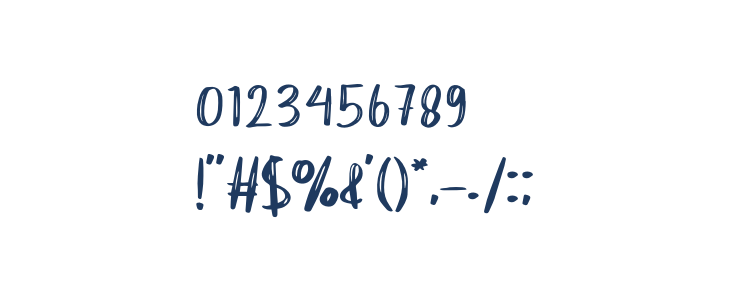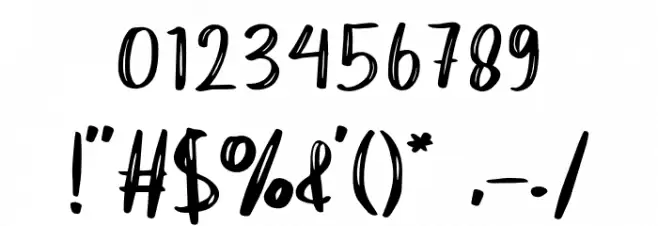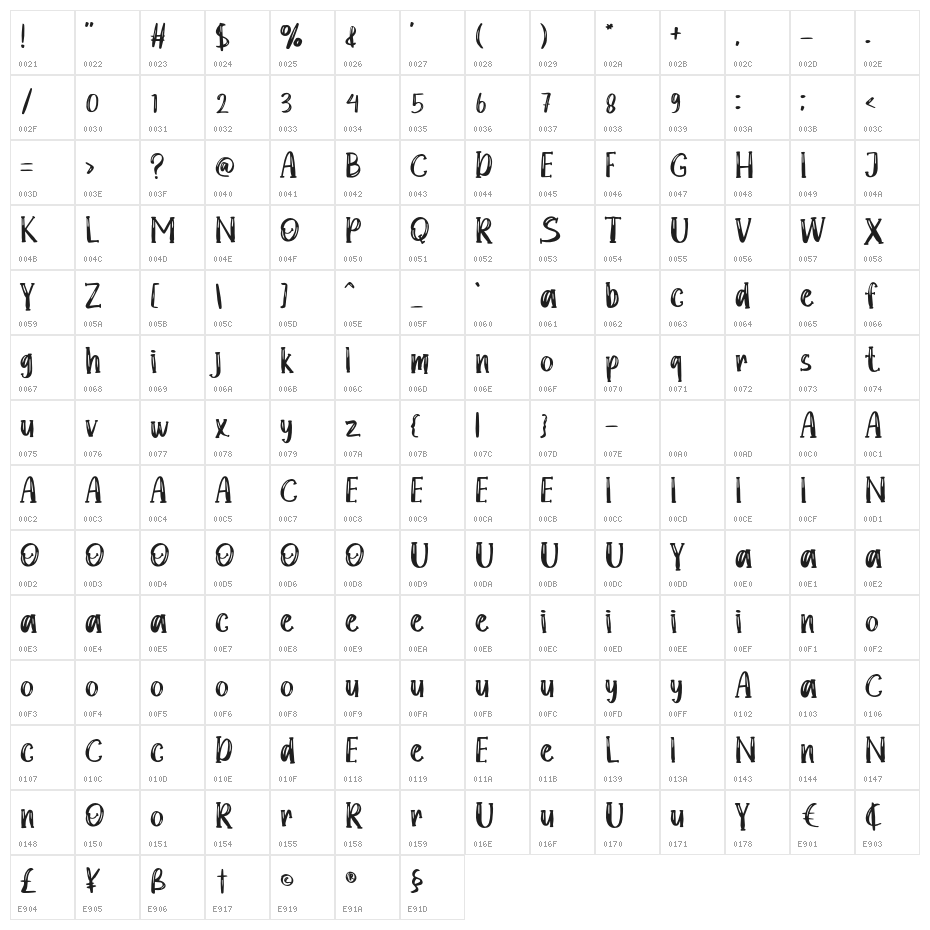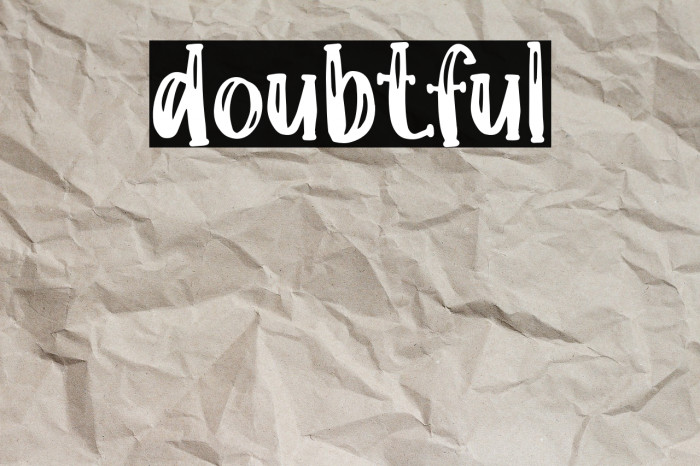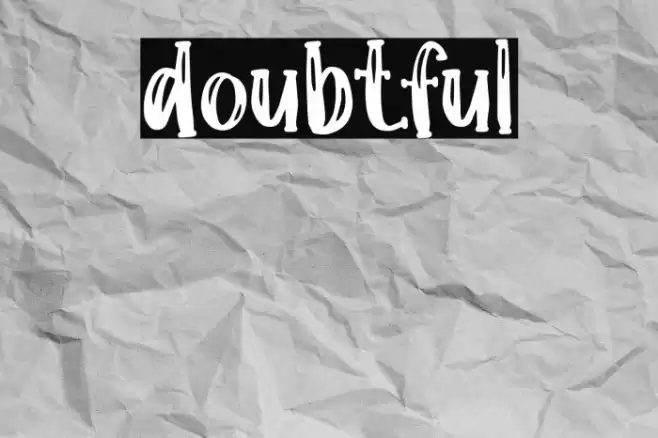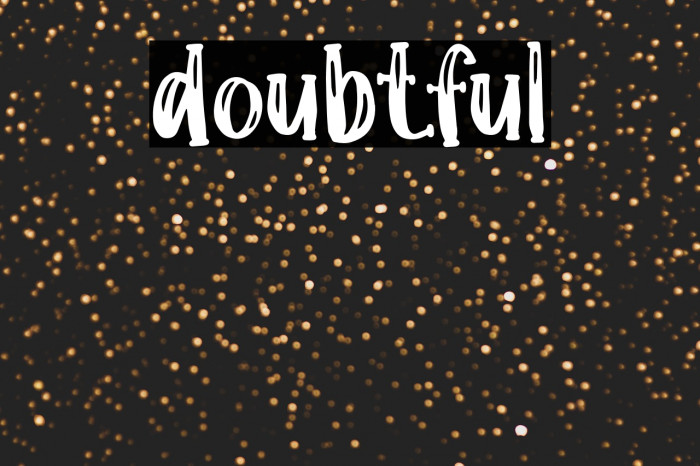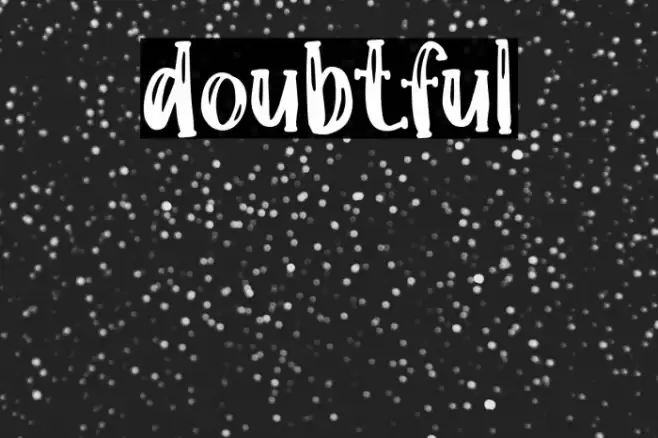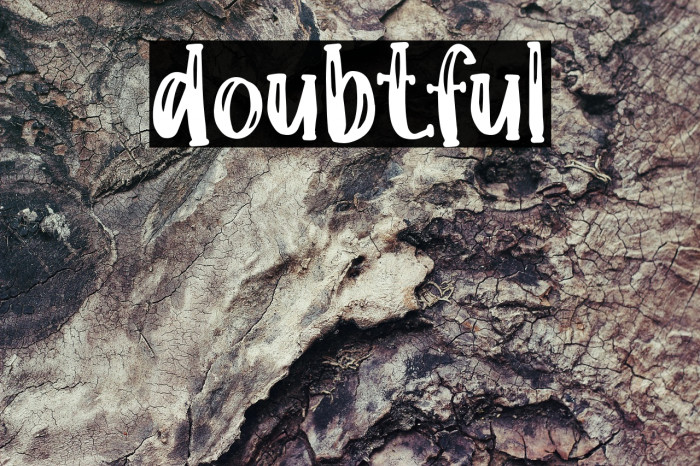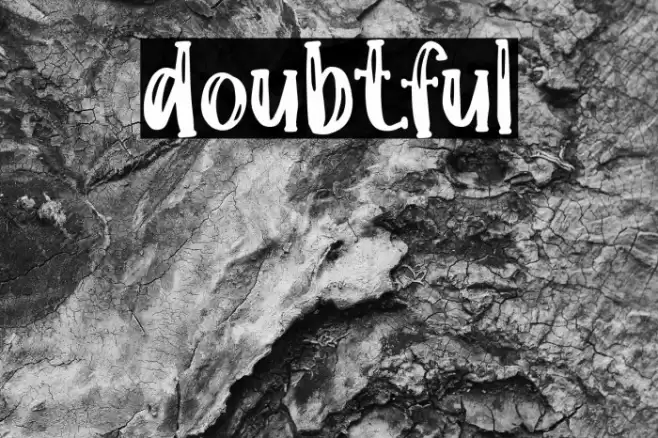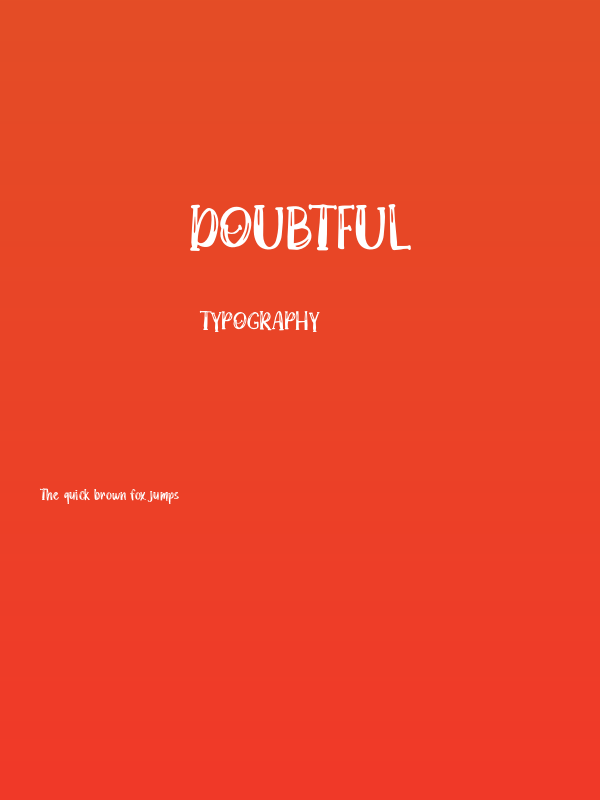
doubtful Font
doubtful Description
This font features a playful and energetic style, characterized by its bold and irregular strokes that give it a hand-drawn appearance. The letters have a whimsical quality, with varying thicknesses and slightly exaggerated curves, adding a sense of movement and dynamism. The uppercase and lowercase letters maintain a consistent aesthetic, while the numbers and special characters complement the overall design with their quirky and distinctive forms. This font's unique style makes it stand out, offering a creative and informal vibe that is perfect for projects requiring a touch of personality and flair.